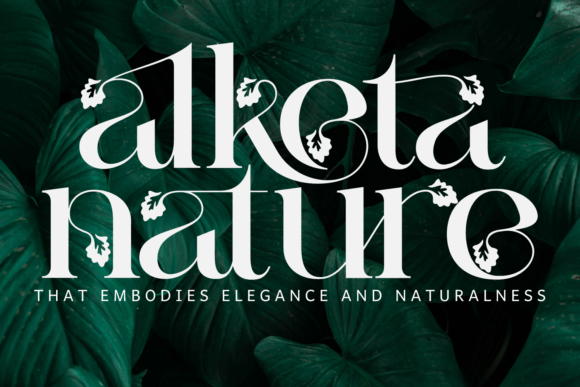
Discover the Delicate Charm of Alketa Nature Font
Have you ever been in the middle of a design project, and suddenly, you’re stuck on finding the perfect font? I recall a recent experience where I was working on a branding project for a new eco-friendly product line. My client wanted a font that would convey a sense of nature, elegance, and femininity. After hours of searching, I stumbled upon Alketa Nature Font, and it was love at first sight! 🌿
A Personal Review of Alketa Nature Font
As a designer, I’m always on the lookout for fonts that can add a touch of personality to my projects. Alketa Nature Font did not disappoint. Here’s what I love about it:
- ✨ Delicate floral designs that add a touch of whimsy to any design
- ✅ Elegant and feminine, perfect for headlines and decorative purposes
- 🌸 Nature-inspired concept with leaf swashes that evoke a sense of serenity
- 💻 Highly versatile, suitable for posters, product packaging, logos, and more
While Alketa Nature Font is a stunning addition to any design project, it’s not without its quirks. Here are a few things to keep in mind:
- 🤔 Limited use for body text, as it’s best suited for headlines and titles
- ⚠️ May require some experimentation to get the most out of its OpenType features
- Experiment with the font’s OpenType features, such as glyphs and stylistic alternates, to add visual interest to your design
The Story Behind Alketa Nature Font
While I couldn’t find any information on the exact design process behind Alketa Nature Font, I like to imagine that it was created by a designer who’s passionate about nature and elegance. Perhaps they drew inspiration from a serene forest, where the delicate flowers and leaves sparked an idea for a font that would bring a touch of whimsy to any design.
| Font Name | Alketa Nature Font |
| Author | 177Studio |
| What type of projects is Alketa Nature Font best suited for? | Alketa Nature Font is perfect for headlines, titles, and decorative purposes, such as posters, product packaging, and logos. |
| Can I use Alketa Nature Font for body text? | While Alketa Nature Font is beautiful, it’s not recommended for body text. It’s best suited for headlines and titles. |
| Does Alketa Nature Font have OpenType features? | Yes, Alketa Nature Font has OpenType features, including glyphs and stylistic alternates, which can add visual interest to your design. |